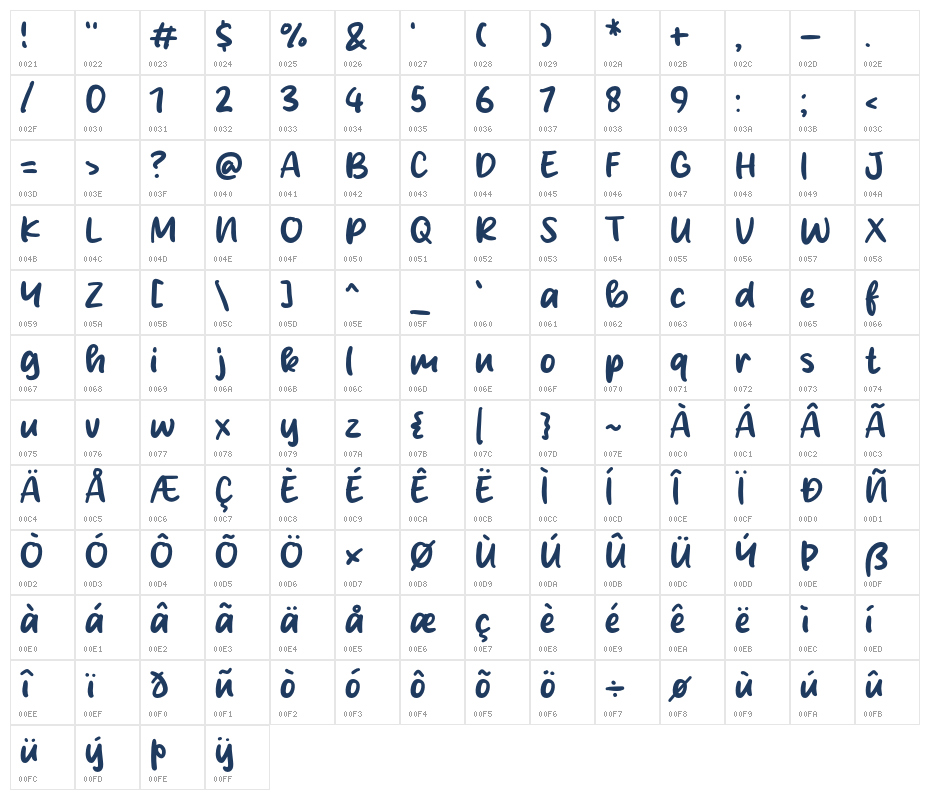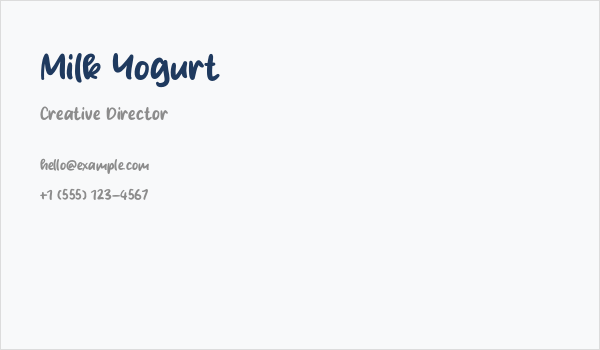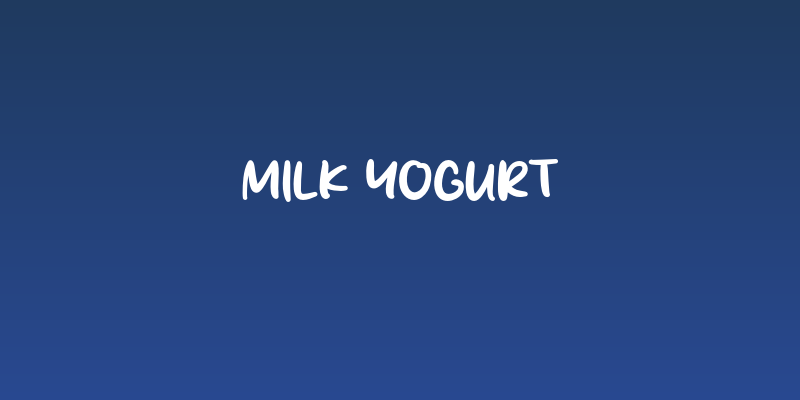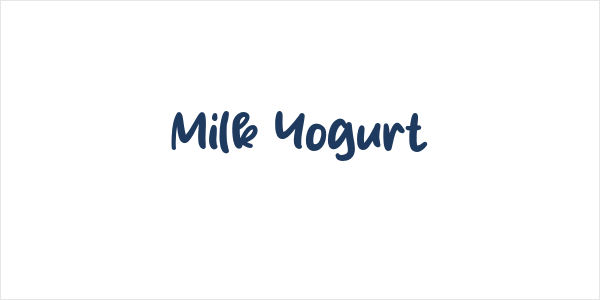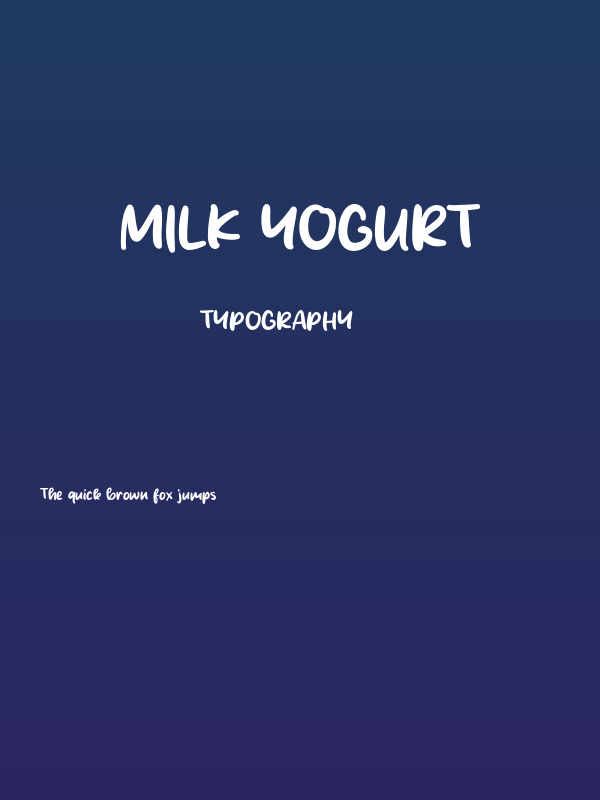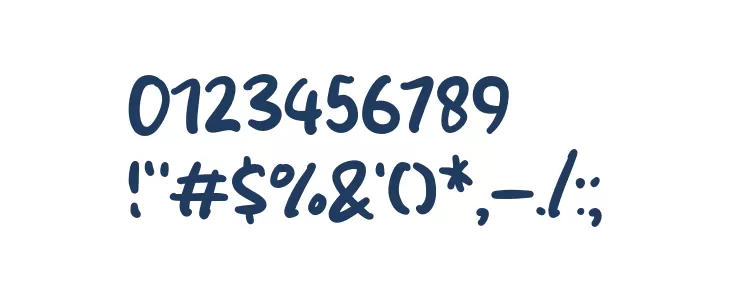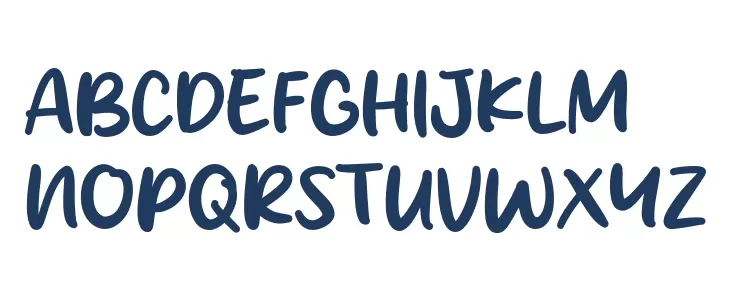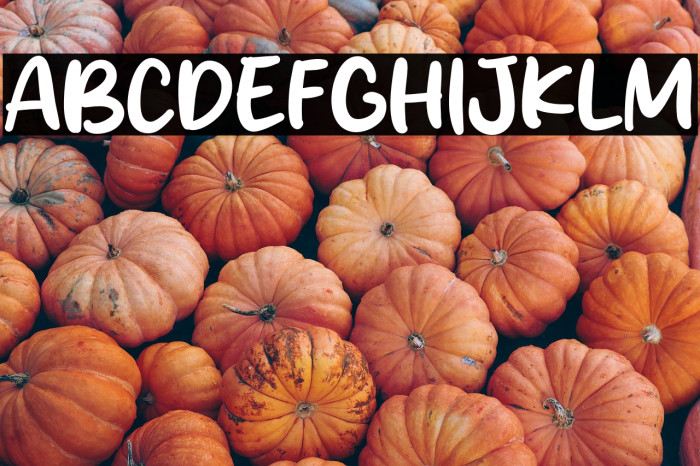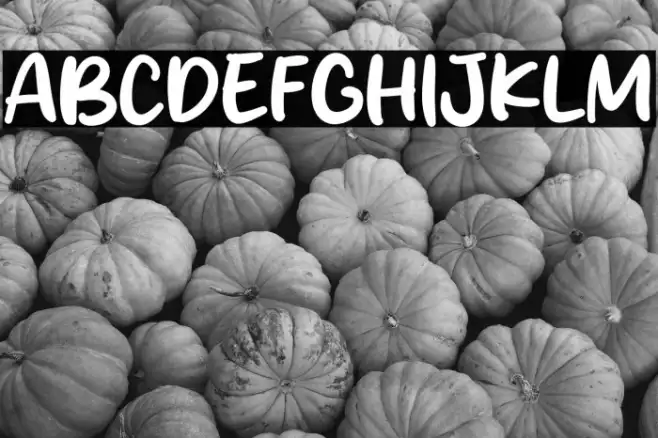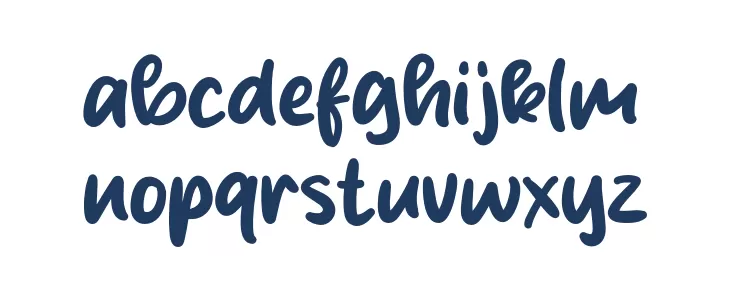
Milk Yogurt Font
Milk Yogurt Description
A casual, handwritten script font with a playful and friendly appearance, featuring rounded edges and a slightly irregular stroke width.
| Overall Style | Casual, Friendly, Handwritten |
| Author | Fonts by Origin Type |